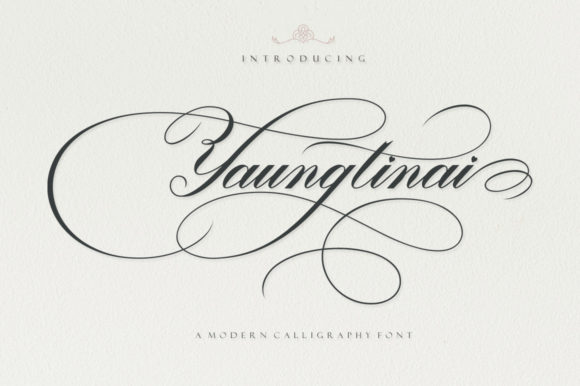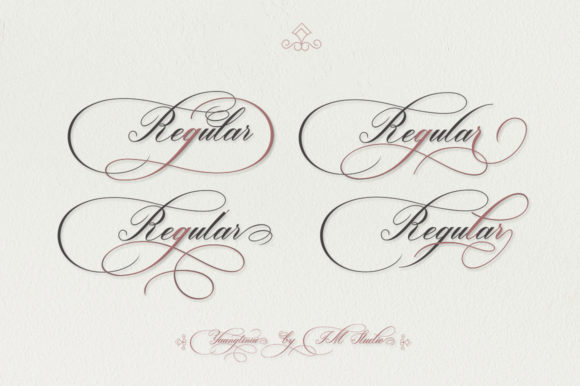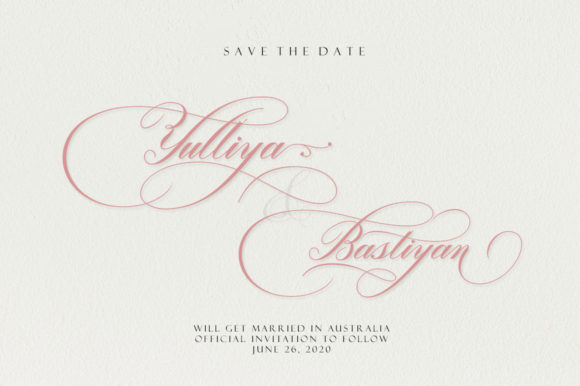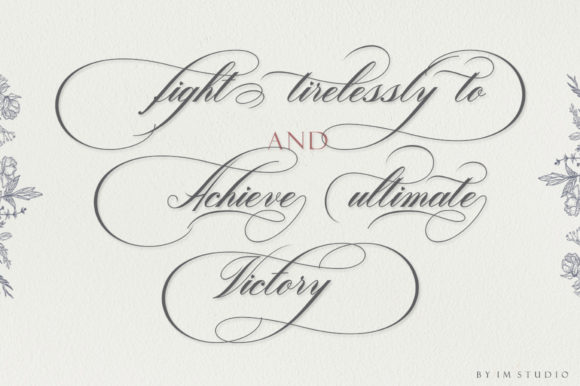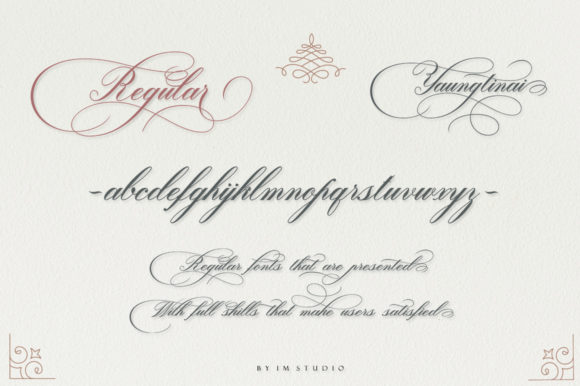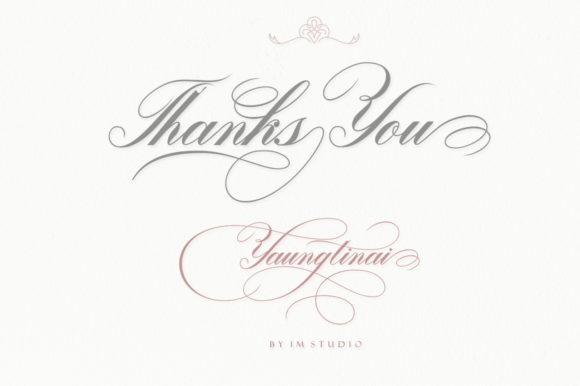
HomeScript FontsYaungtinai Font Script Fonts Yaungtinai Font FacebookXPinterestWhatsApp Yaungtinai Font Poster 2 Yaungtinai Font Poster 3 Yaungtinai Font Poster 4 Yaungtinai Font Poster 5 Yaungtinai Font Poster 6 Yaungtinai Font Poster 7 About Yaungtinai Font Yaungtinai is an elegant script font with flowing characters. Fall in love with its fancy appearance! DOWNLOAD ON CREATIVE FABRICAThis font is sold and delivered by Creative Fabrica. Font Canyon may earn a commission if you buy through this link. People also explored Cute Crafts Font Valentine Font Kidz Bold Holiday Wishes Font Zenobia Surfers South Font Distressed Telegraph Coffeedance Christmas Jellyshake Font 359 0 TagsYaungtinai Font Previous articleBromrose Sands FontNext articleRatherbe Font LEAVE A REPLY Cancel reply Comment: Please enter your comment! Name:* Please enter your name here Email:* You have entered an incorrect email address! Please enter your email address here Website: Save my name, email, and website in this browser for the next time I comment. Personal Use Free Beloved Script Personal Use Free Read more about this font Potato Pancakes Personal Use Free Read more about this font Electroharmonix Personal Use Free Read more about this font Love Heart Personal Use Free Read more about this font BLOG Where to Buy American Fonts Online in 2024 Where to Buy American Fonts Online: The Ultimate Guide for 2024 Looking for the perfect American font to elevate your design projects? You're in the... Free Fonts Risk: Why Free Fonts Can Be Dangerous for Designers Using Fonts in Digital Marketing: Tips to Strengthen Your Brand Identity Best Fonts for YouTube Videos: Make Your Thumbnails Stand Out